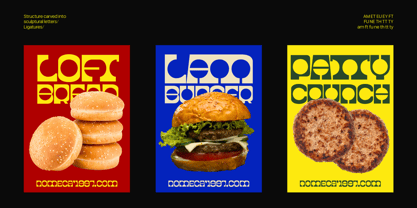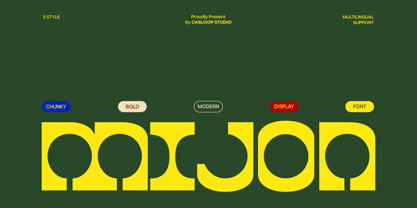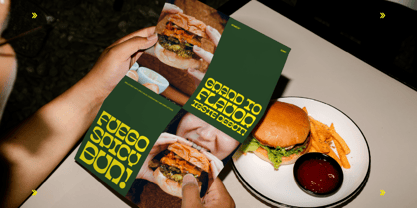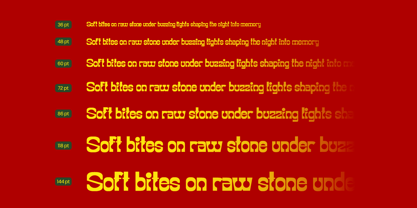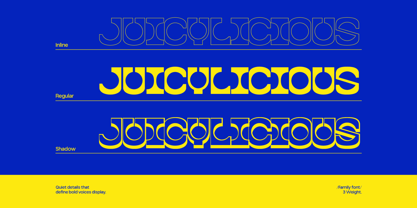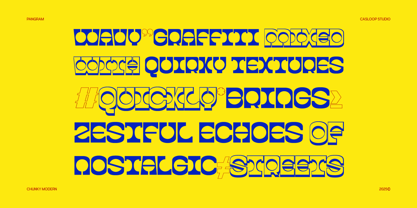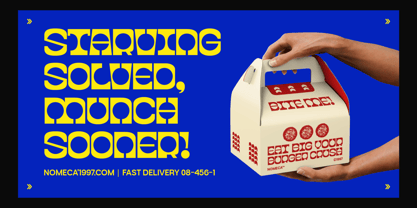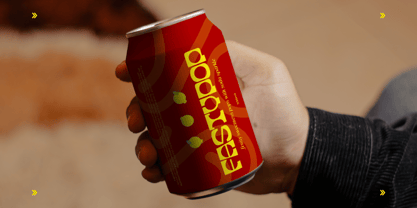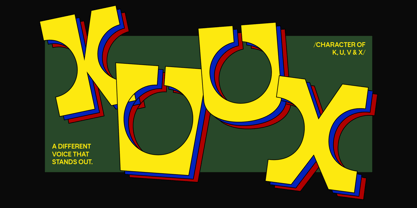
Mijon
by Casloop Studio
The Mijon Font Family was designed by Wantara Putra and published by Casloop Studio. Mijon contains 3 styles and family package options.
MIJON is a chunky bold display sans crafted for brands that dare to stand out. With oversized proportions, loud personality, and quirky cuts, it feels like a visual shout — fun, confident, and unapologetically bold. Every letter is designed to spark appetite and energy, making it the perfect choice for food, beverage, and lifestyle branding that needs main character energy.
This typeface blends chunky geometry with modern clarity, so your words hit like a punchline while staying versatile for today’s creative needs. MIJON’s hero characters — K, U, V, and X — bring a loud, quirky voice that’s both playful and brave, turning even the simplest headline into a brand statement.
Personality
“Chunky” – oversized shapes, bold and full of appetite
“Playful” – quirky cuts, lively curves, fun to read
“Modern” – a clear sans serif structure for versatile branding
Feels like: burger wrappers, soda cans, streetwear drops, pop-culture posters, café menus
Best For
Display headlines & bold titles
Food & beverage branding (café, burger joint, bar, soda brand)
Chunky pairings with clean body text
Product packaging & merchandise
Youth culture & modern event posters
With 3 styles — Inline, Regular, and Shadow plus a variable font option, MIJON adapts from retro-pop boldness to modern, chunky minimalism. Multilingual Extended Latin support makes it global-ready, while its appetite-driven aesthetics make it unforgettable.
From burger boxes to billboard headlines,
MIJON is here to feed your brand with chunky energy and playful boldness.
Designers: Wantara Putra
Publisher: Casloop Studio
Foundry: Casloop Studio
Design Owner: Casloop Studio